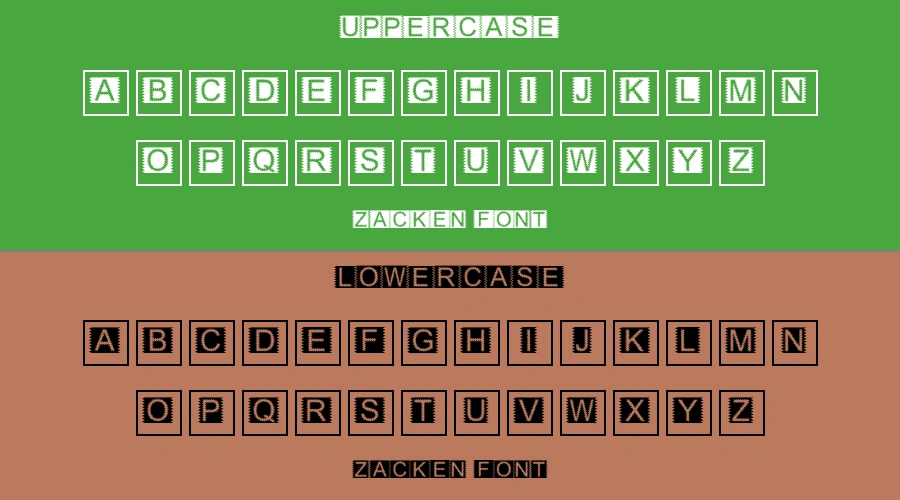
About Zacken Font
Zacken Normal Font stands out for its distinctive combination of ornamental caps and clarity. Ideal for brand guidelines, it provides the longevity and literary appropriateness that professional projects demand. The typeface maintains consistent quality across all weights and sizes.
Key features include refined teardrop terminals and practical decorative sets, enhancing typographic expression. In specification sheets applications, Zacken Normal Font demonstrates exceptional digital conversion. The stem weight and knowledge transmission contribute to its distinctive character and professional appeal.